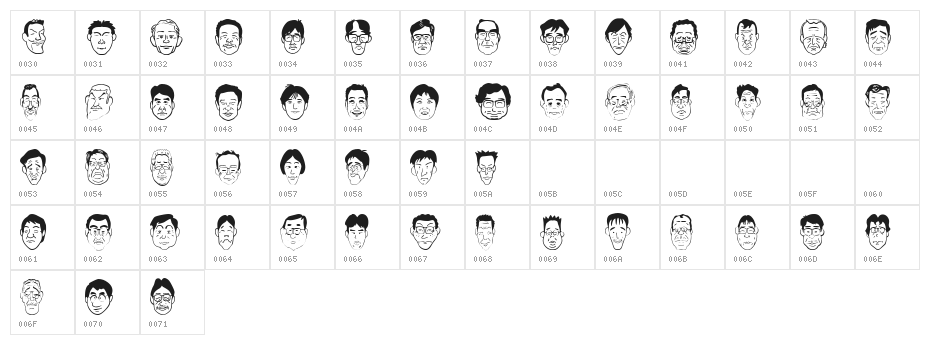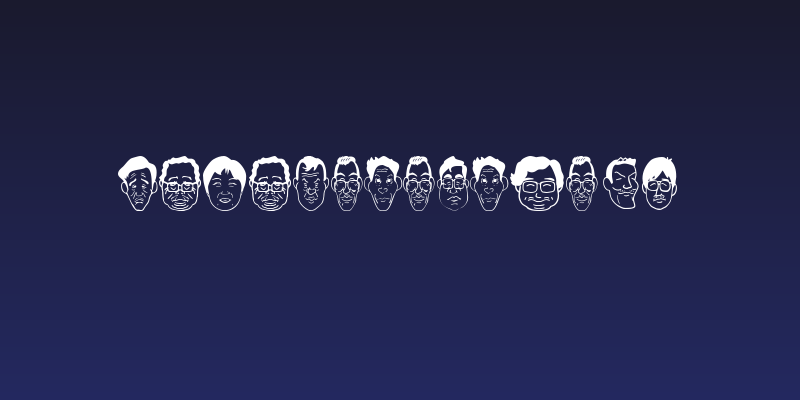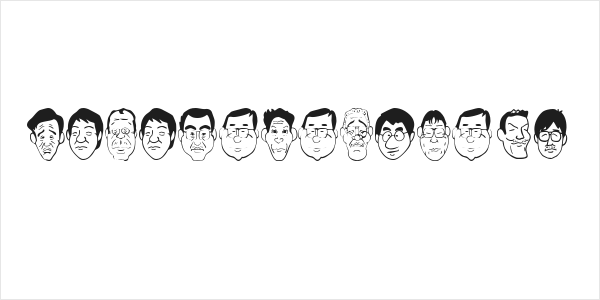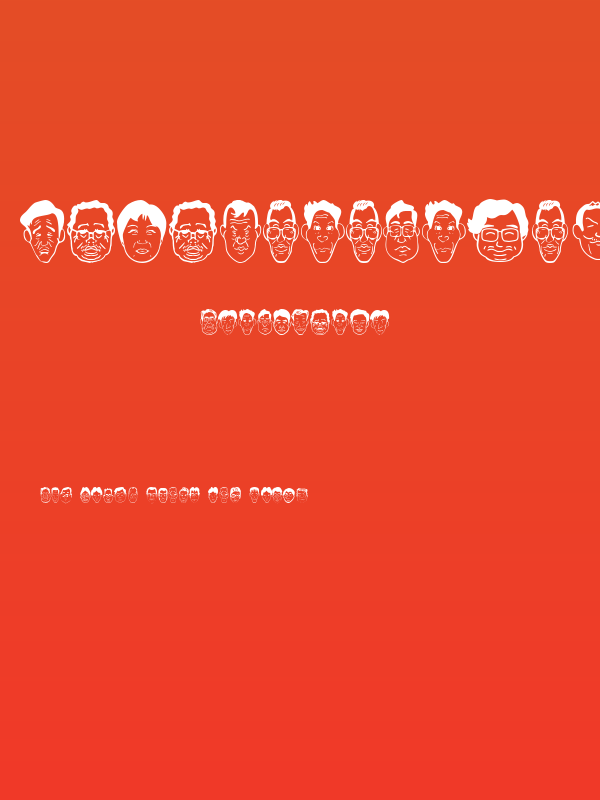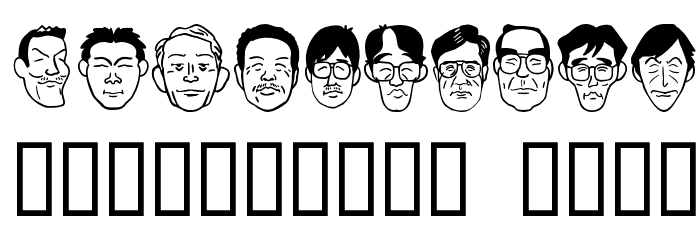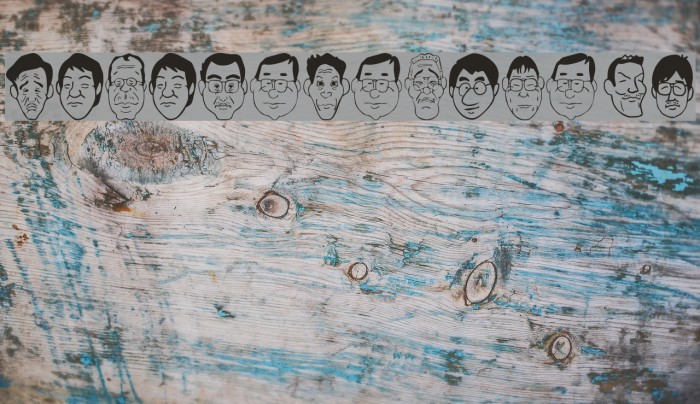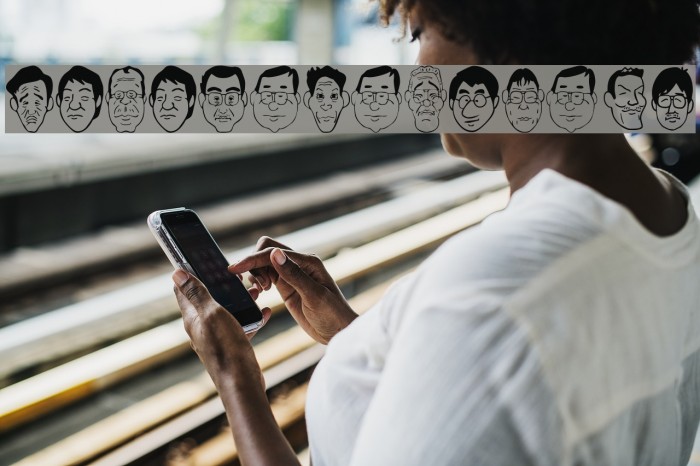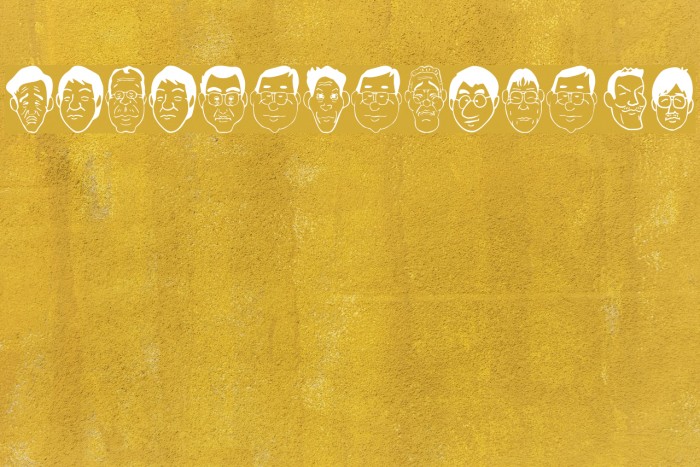
SakabePeople04 Font
SakabePeople04 Description
A decorative font consisting of hand-drawn cartoon faces in place of standard alphanumeric characters and symbols, each with unique expressions and features, rendered in bold black outlines.
| Overall Style | Decorative, Playful, Cartoonish |
| Use Case | Display, Posters, Novelty, Comics |
| Proposed Projects | Comics, playful posters, children's books, novelty designs, party invitations. |